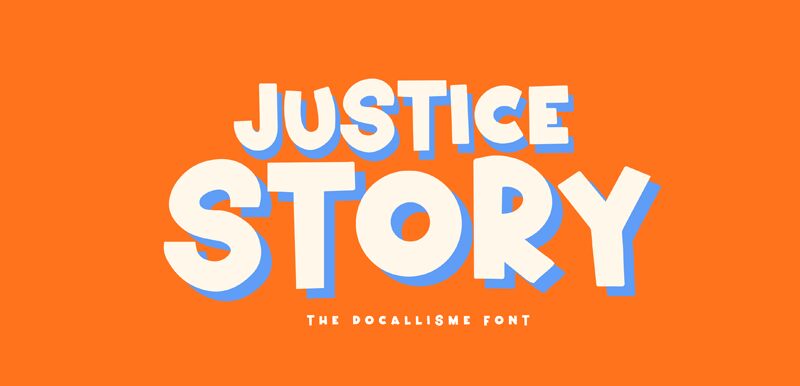
Justice Story
Justice Story, crafted by The Docallisme - Amry Al Mursalaat, leaps off the page with its bold and lively cartoon style. This display font infuses energy into any project, from eye-catching logos to dynamic comic strips. Its playful curves and exaggerated forms are perfect for creators looking to inject fun and personality into their work.